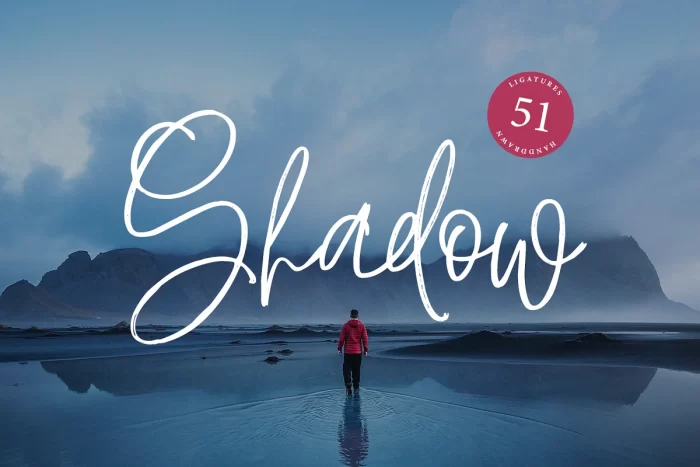
Shadow Script Font
Shadow includes full set of lovely uppercase and lowercase letters, multilingual symbols, numerals and punctuation. This is so perfect for invitations, monograms etc.